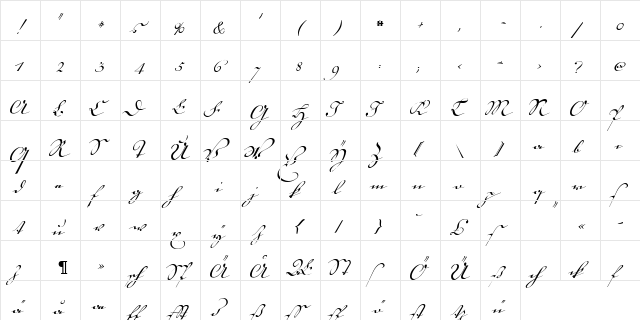
18th Century Kurrent Text Regular
| Foundry | Peter Wiegel |
| Designer | Peter Wiegel |
Design Context for 18th Century Kurrent Text Typeface
18th Century Kurrent Text takes a measured approach to typography — its balanced proportions and neutral character make it a reliable workhorse for both digital and print work.